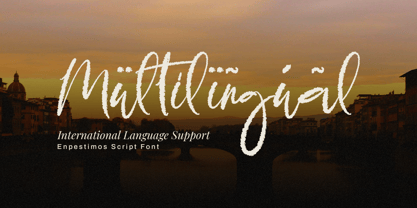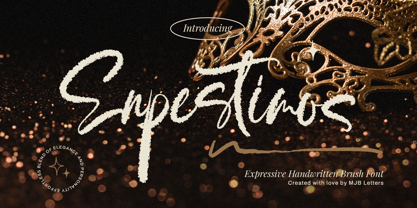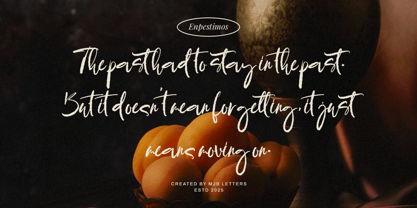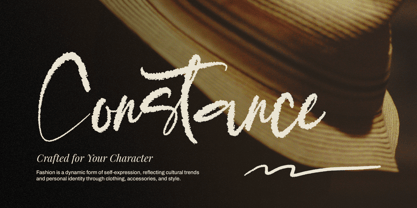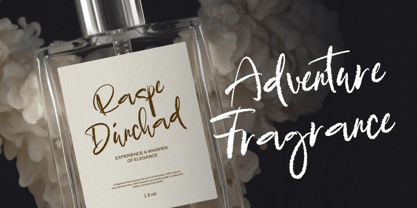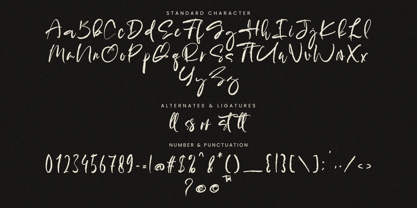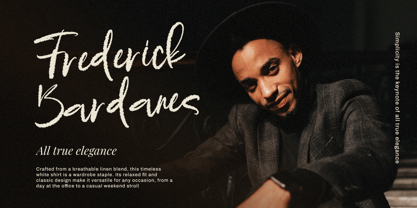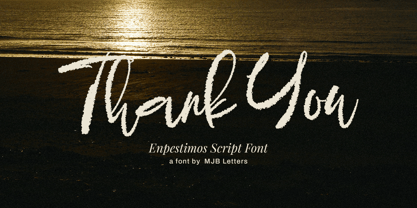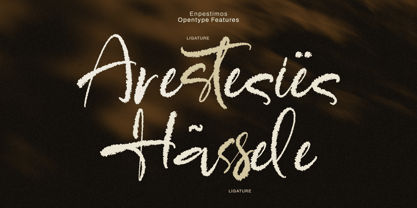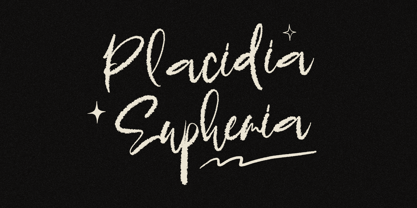
Enpestimos
by MJB Letters
The Enpestimos Font Family was designed by Muhammad Mujibulloh and published by MJB Letters. Enpestimos contains 1 styles. More about this family
Enpestimos is an expressive handwritten brush font that blends artistic character with modern design. Created with textured brush strokes and a natural handwritten flow, this font offers a perfect balance between energy and elegance. Its handcrafted style gives every letter a personal and confident touch, making it suitable for various creative projects such as branding, posters, packaging, fashion, quotes, and social media designs. Enpestimos brings authenticity and bold expression to any visual composition. Features: Expressive handwritten brush style Natural and textured brush details Ideal for branding, packaging, posters, and typography design A strong blend of elegance and personality Enpestimos – Expressive Handwritten Brush Font is created with love by MJB Letters to inspire designers who seek creativity, individuality, and modern aesthetics in their work.
Designers: Muhammad Mujibulloh
Foundry: MJB Letters